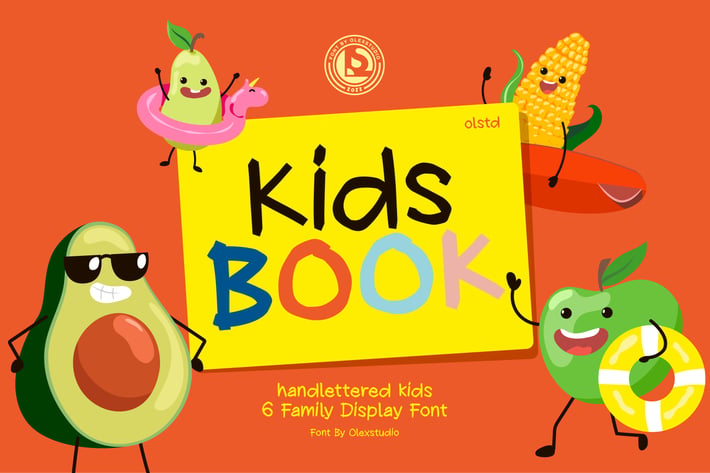
KIDS BOOK olstd - Comic Font
KIDS BOOK olstd Font will look gorgeous on all your designs, kids invitation, kids poster design, kids book design, branding materials, kids logo's, and all project design other.
KIDS BOOK olstd Font contains standard characters, Uppercase, Lowercase, numbers, punctuation, ligatures and international glyphs. You will receive OTF, TTF files & WEBFONT.